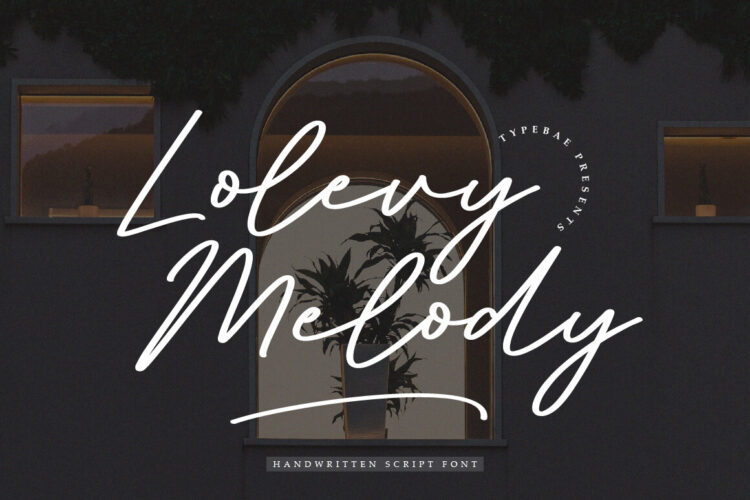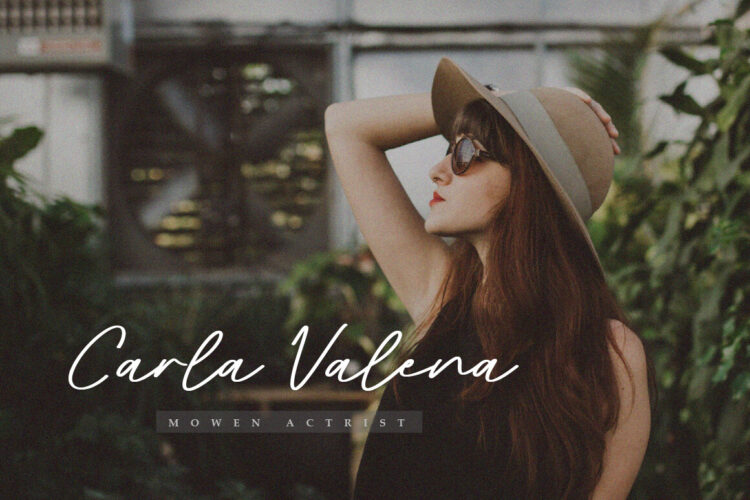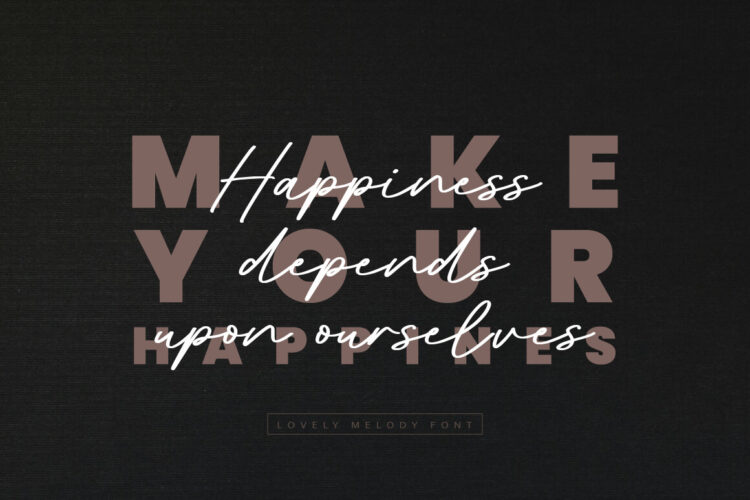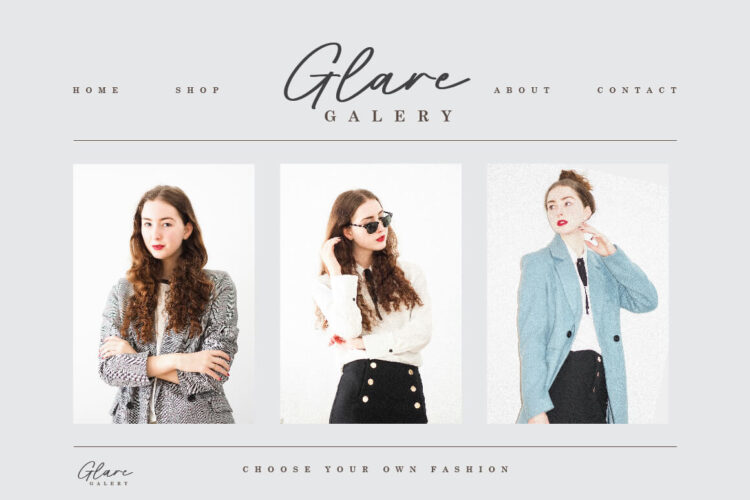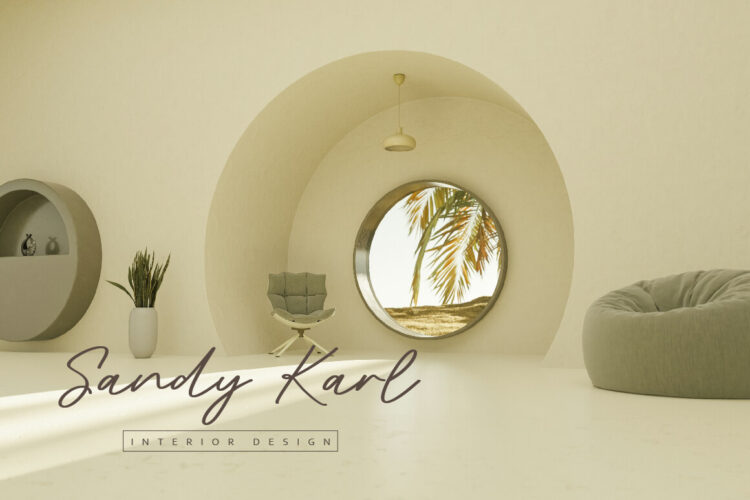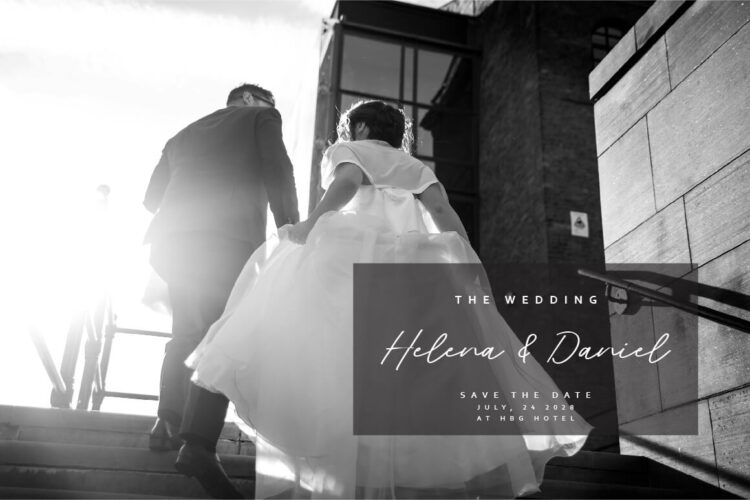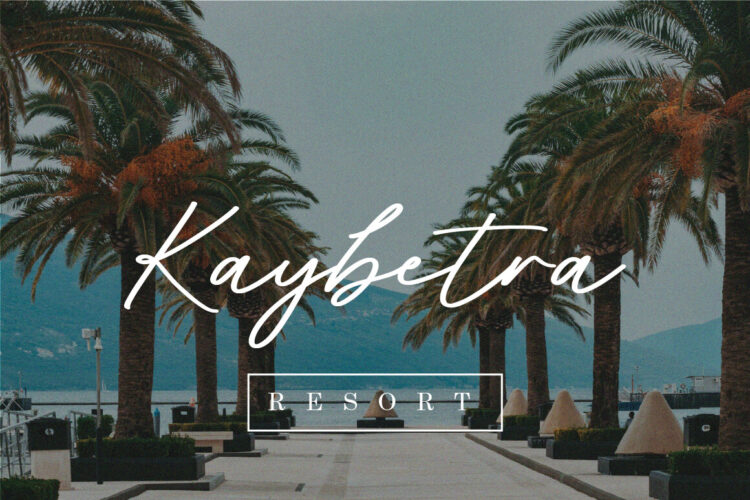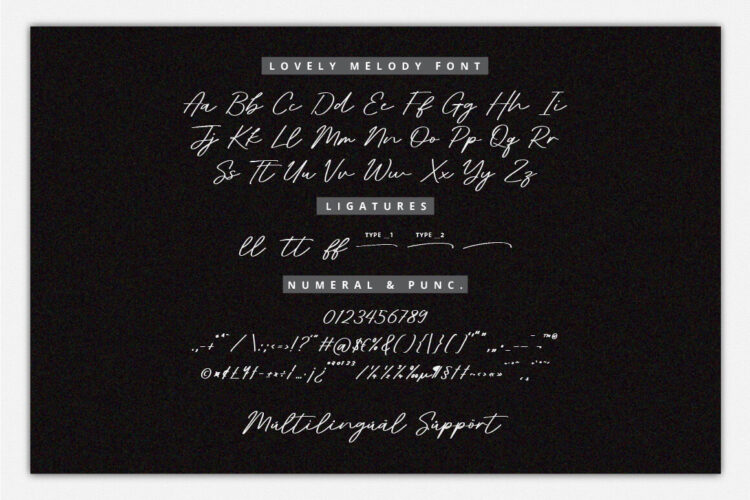
Lovely Melody
Lovely Melody is a stylish handwritten script font with an elegant brush-style design. Its slightly bold strokes and artistic flair make it perfect for invitations, branding, and creative projects. With its unique blend of sophistication and readability, Lovely Melody font adds a personal touch and captivating style to any design.
• Uppercase & Lowercase
• Numeral & Punctuation
• Ligature & Swashes
• PUA Encoded & Multilingual